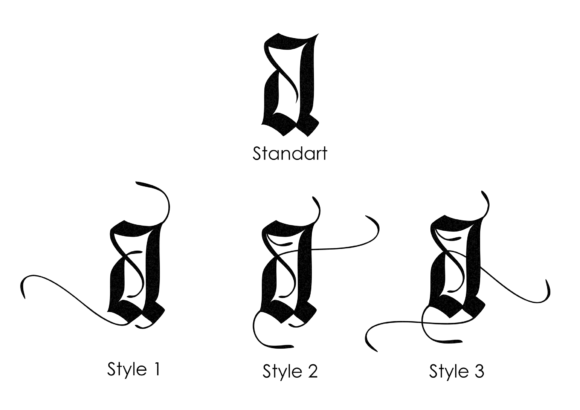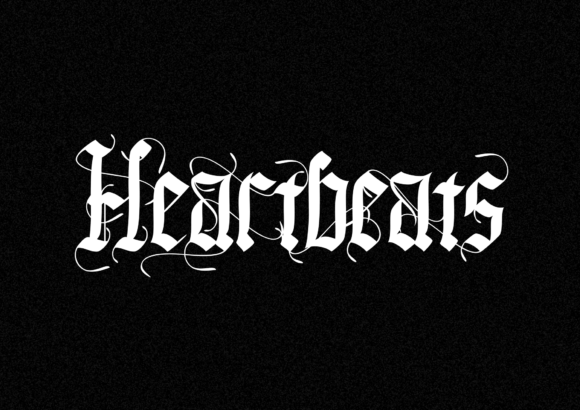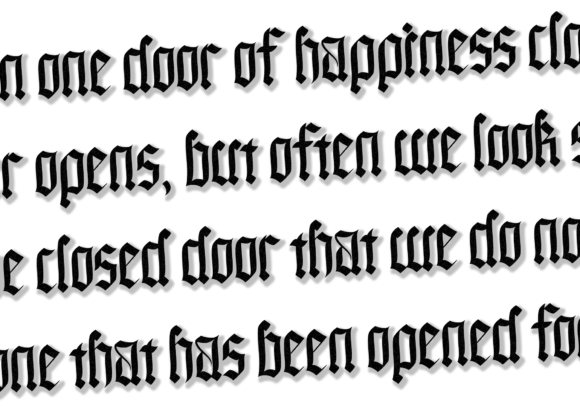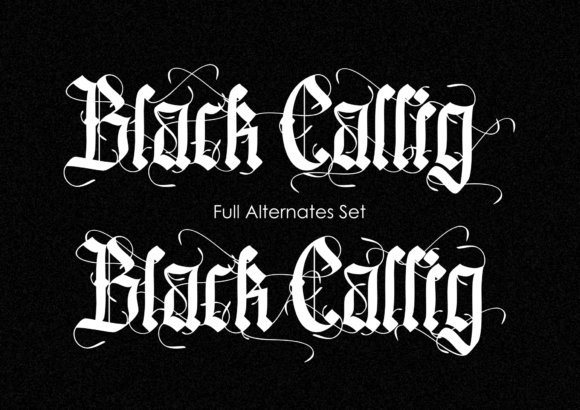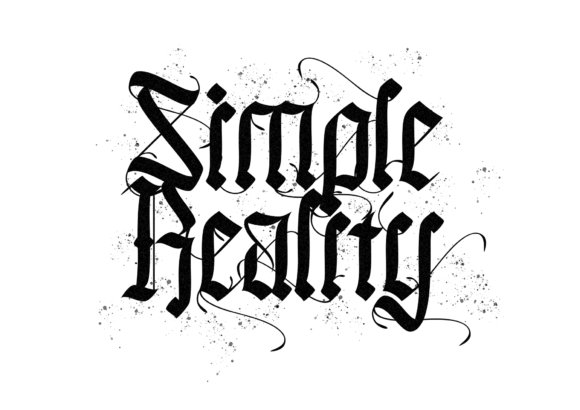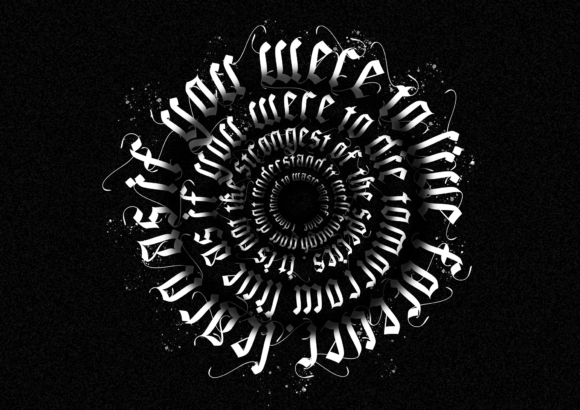
Unleash the Power of Black Callig Font: Elevate Your Designs with Elegance and Sophistication
In the world of typography, few fonts manage to capture the essence of elegance and sophistication as effectively as the Black Callig Font. This stunning blackletter font has been making waves in the design community, and for good reason. Its unique style, replete with amazing alternates and swashes, makes it an indispensable asset for designers looking to add a touch of class and refinement to their work. Whether you’re crafting logos, branding materials, packaging designs, or anything in between, Black Callig is a true must-have in your typographic arsenal.
What Makes Black Callig Font Stand Out?
Black Callig’s distinctive charm lies in its intricate design and versatile features. Unlike standard fonts, Black Callig offers a rich array of alternates and swashes, allowing designers to experiment with various styles and create truly unique pieces. This level of customization is particularly valuable in today’s competitive design landscape, where standing out is crucial. The font’s blackletter style, with its dramatic flourishes and classic aesthetic, lends an air of sophistication and luxury to any project it’s used in.
One of the key strengths of Black Callig Font is its versatility. It’s not limited to a specific type of design but can be seamlessly integrated into a wide range of projects. Here are just a few examples of where Black Callig can make a significant impact:
- Logos and Branding: Create memorable and impactful logos that convey elegance and prestige. Black Callig’s unique style ensures your brand stands out and leaves a lasting impression.
- Packaging Design: Elevate your product packaging with sophisticated typography that exudes luxury and quality. This can be particularly effective for high-end products or special editions.
- Advertising and Marketing Materials: Add a touch of refinement to your ads, brochures, and marketing collateral. Black Callig’s distinctive style can help your message stand out in a crowded marketplace.
- Web Design: Incorporate Black Callig into your website’s typography for a cohesive and elegant look. Its readability and style make it suitable for headings and titles.
Why Designers and Crafters Love Black Callig
Designers and crafters alike are drawn to Black Callig for several reasons:
- Ease of Use: Despite its intricate design, Black Callig is surprisingly easy to use, even for those who may be new to working with blackletter fonts.
- High-Quality Design: The font is masterfully designed, with attention to detail that ensures it looks great in both print and digital formats.
- Customization Options: With a range of alternates and swashes at your disposal, you have the flexibility to tailor your typography to fit your project’s specific needs.
Black Callig Font is more than just a typeface; it’s a design statement. Its unique blend of classic elegance and modern versatility makes it an invaluable resource for designers and crafters looking to elevate their work. Whether you’re aiming to create a bold brand identity, design eye-catching packaging, or simply add a touch of sophistication to your projects, Black Callig is up to the task. With its impressive features and stunning aesthetic, it’s clear that Black Callig is a font that will continue to be a favorite among designers for years to come.
So, if you’re looking to add a bit of luxury and refinement to your designs, look no further than the Black Callig Font. Its impact is undeniable, and its versatility is unmatched. Make the smart choice for your next project; choose Black Callig.